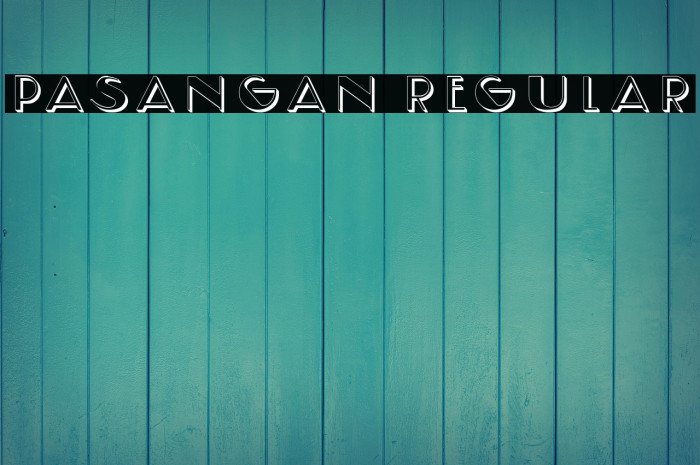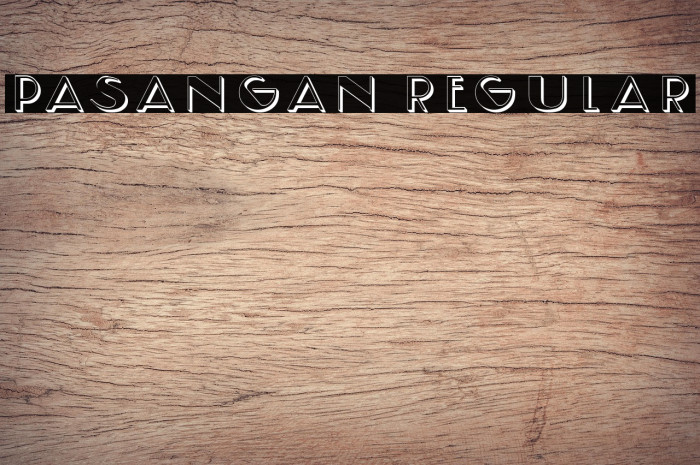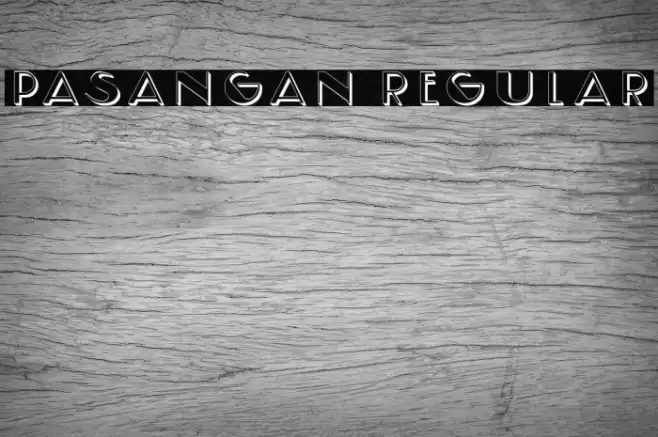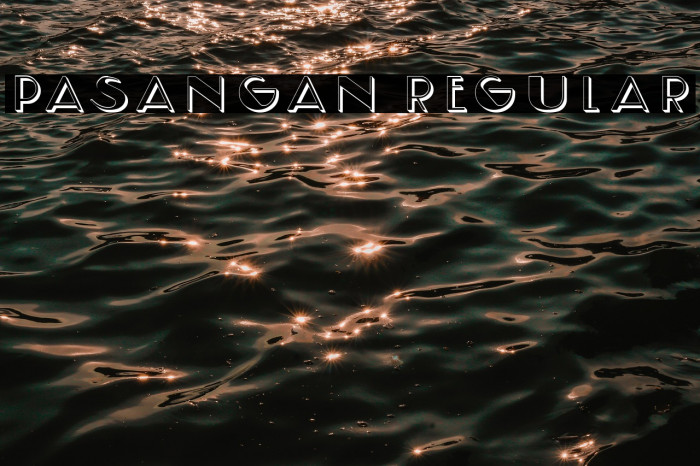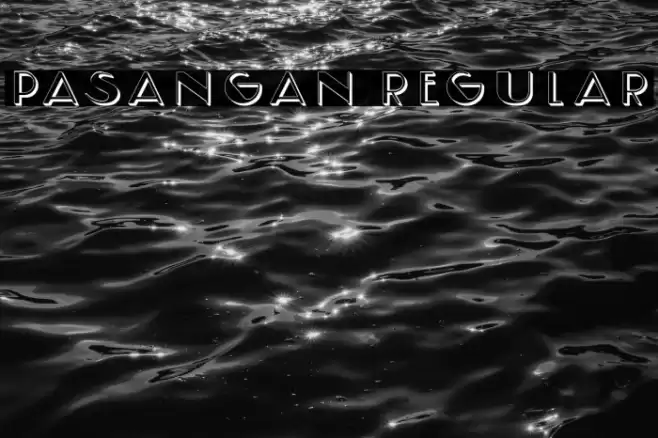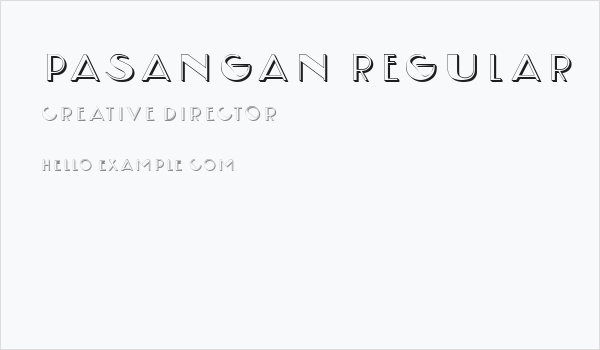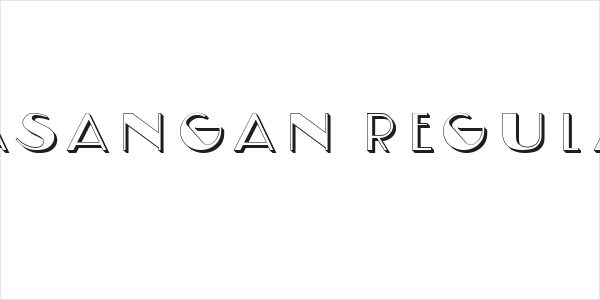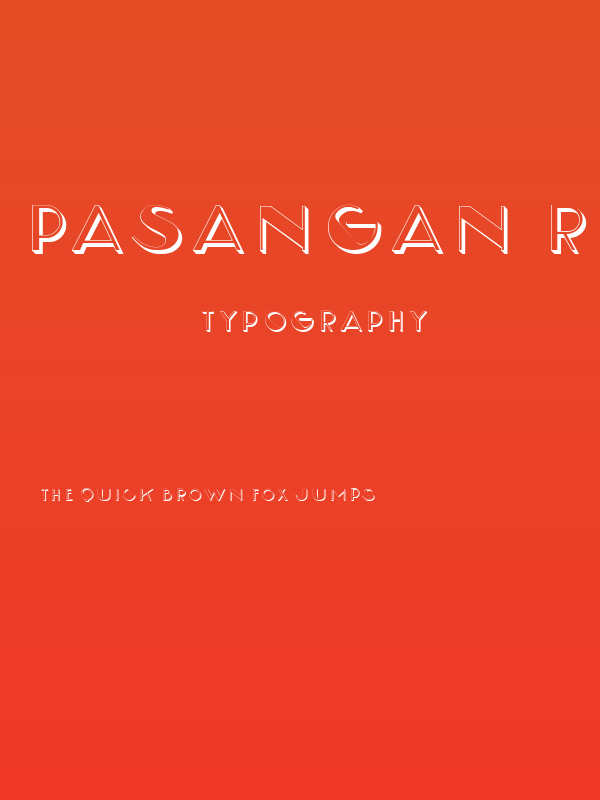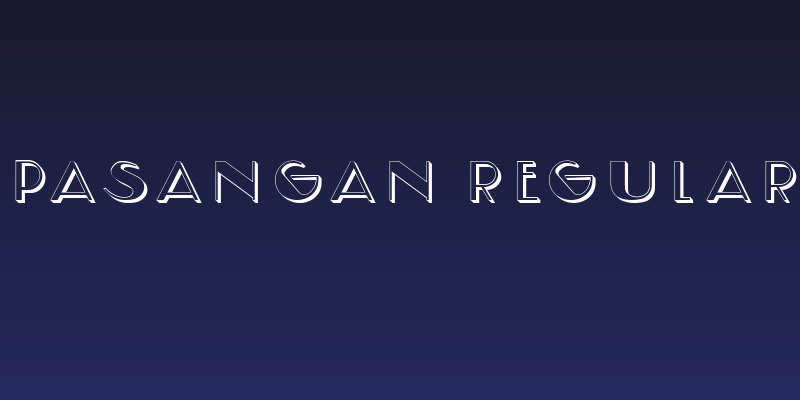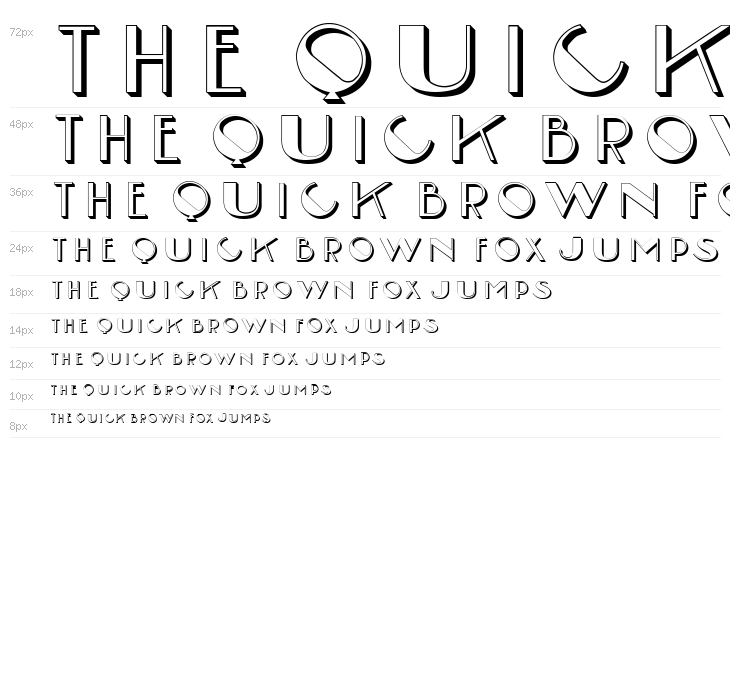
Pasangan Regular Font
Pasangan Regular Description
This font features a modern and geometric design with a unique blend of solid and outlined elements. Each character is crafted with precision, showcasing a balance between bold lines and open spaces. The uppercase letters are particularly striking, with angular forms and a futuristic aesthetic. The lowercase letters maintain the same geometric style, ensuring consistency throughout. The numerals and special characters are designed to complement the alphabet, making this font versatile for various applications.